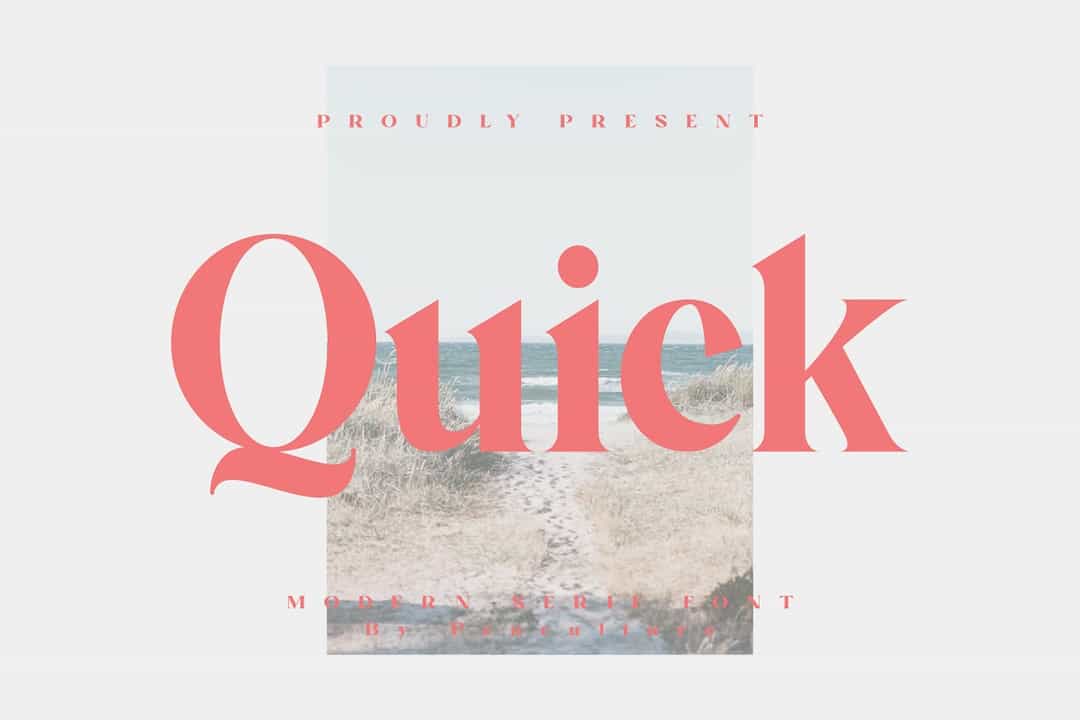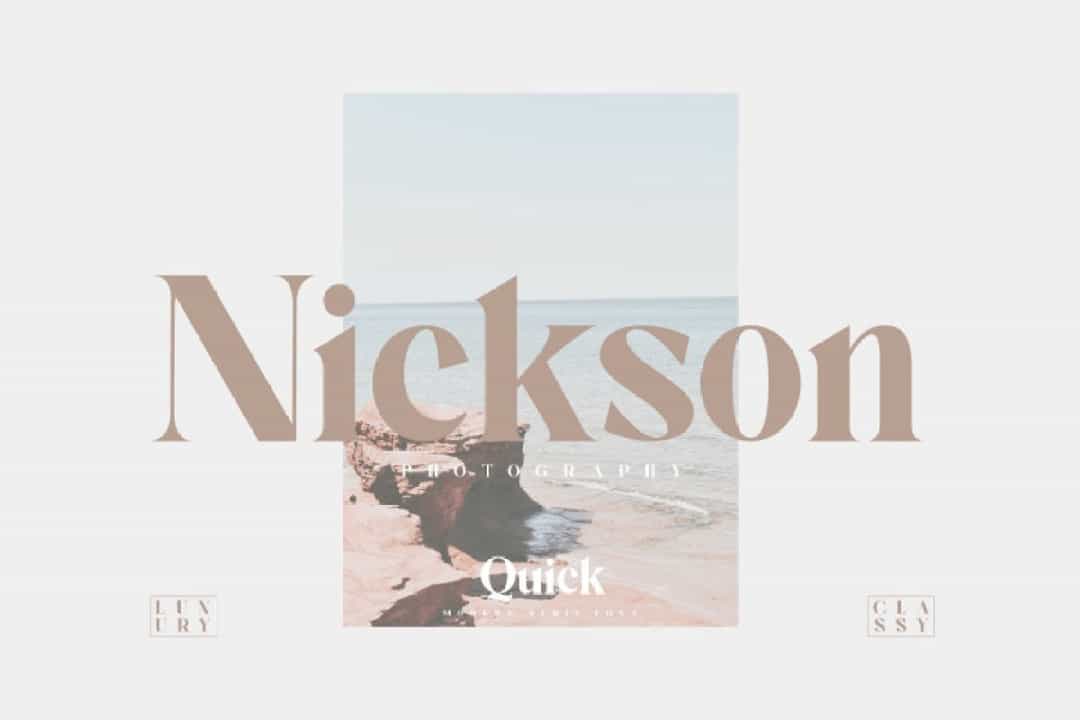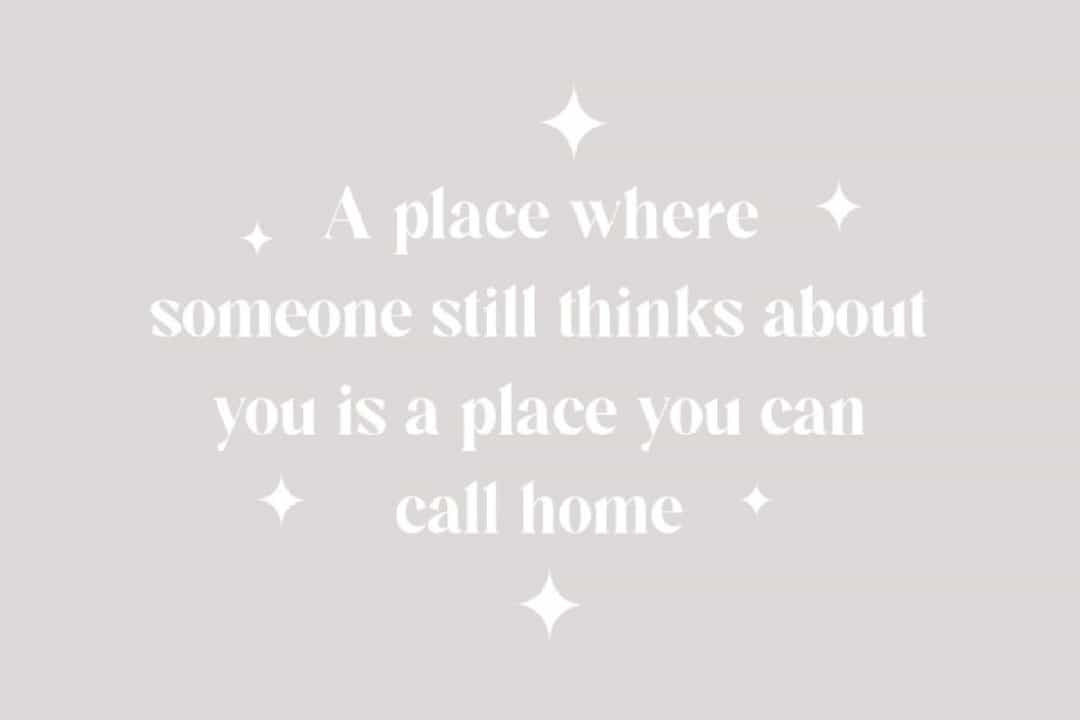
Quickis is an eye-catching serif font with bold letters that makes an impressive statement in many designs that require an individual touch. Quickis stands out among modern fonts with its stylish letters that easily lend itself to matching them together for unique projects.